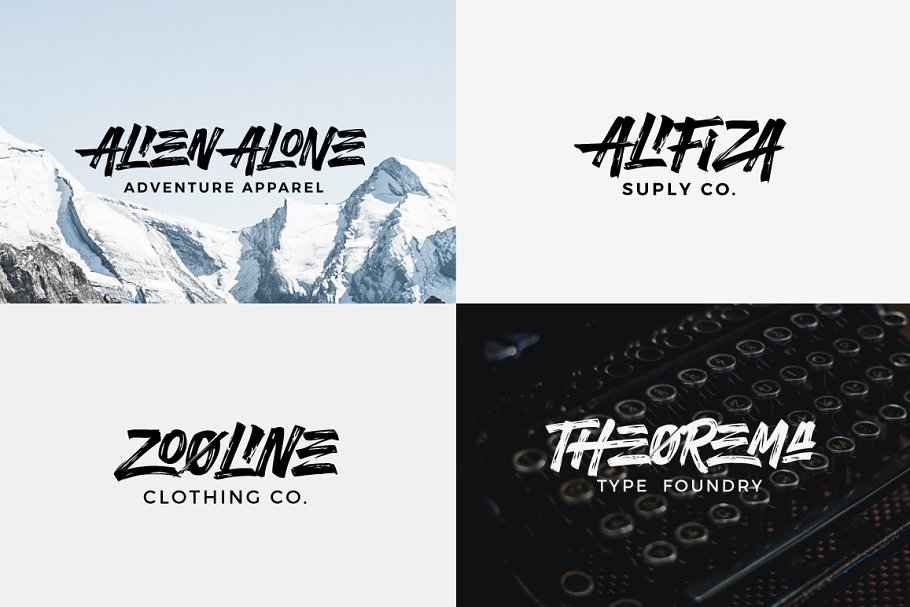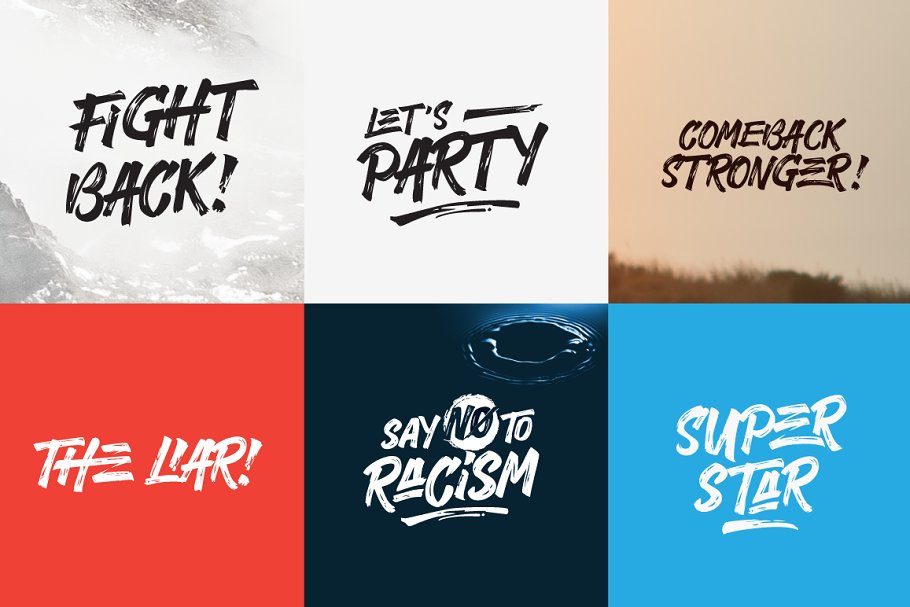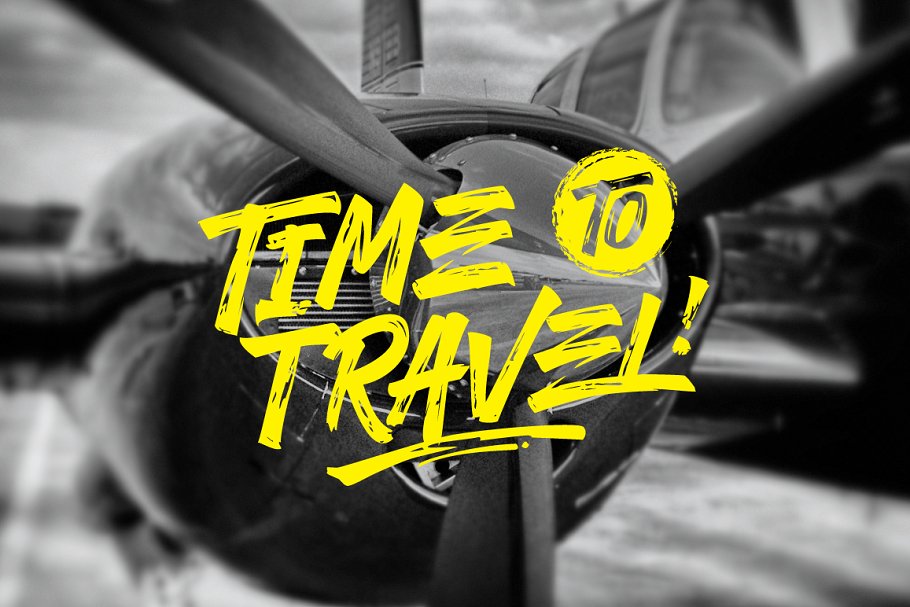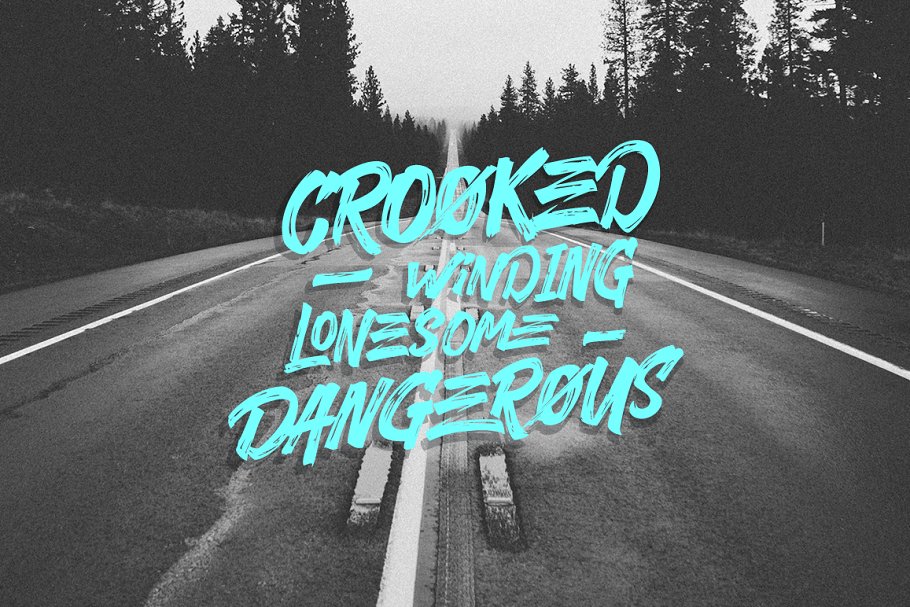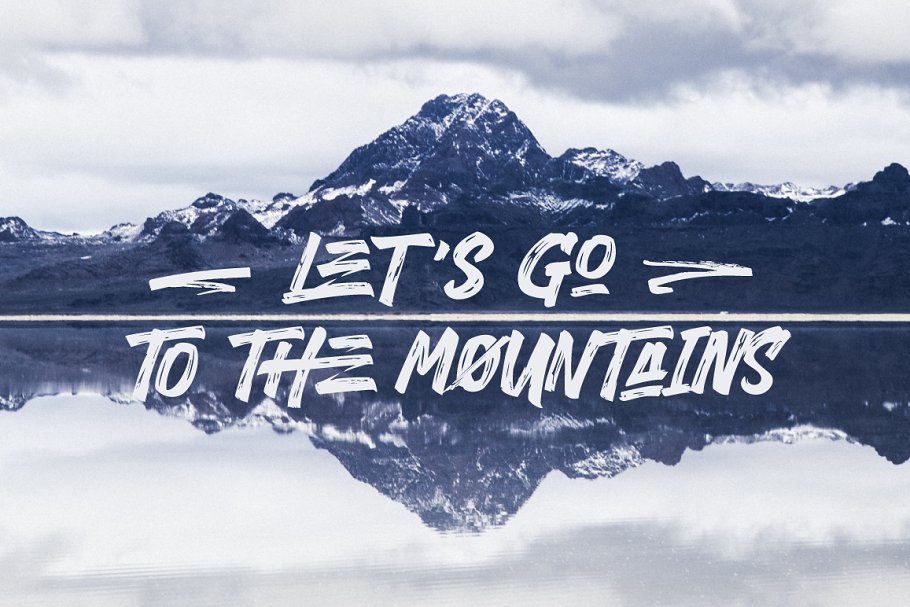
About the Riverhack Brush Font
SALE : Get This Font in Our MINI FONT BUNDLE FOR ONLY $18 : https://creativemarket, com/neSia/2213073-Mini-Font-Bundle-Typia-NesiaRiverhack Brush font! a new hand brushed font with 26 swahes, **Suitable for any design needs : branding, logos, handwritten quotes, product packaging, merchandise, blog design, modern advertising design, invitation, Art Quote, Home decor, Book/Cover Title, Invitation, special events, birthday, custom mug, pillow, t-shirts, any brush lettering needs and more
What’s Included :Riverhack Font – a hand brused font comes with Standard Characters (all uppercase), Punctuation, Numerals, And other Glyphs variation of the OpenType features such as Stylistic Alternates, Stylistic Set and Ligatures, Accessible in the Adobe Illustrator and adobe indesign Glyphs panel, or under Stylistic Alternates in the Adobe Photoshop OpenType menu